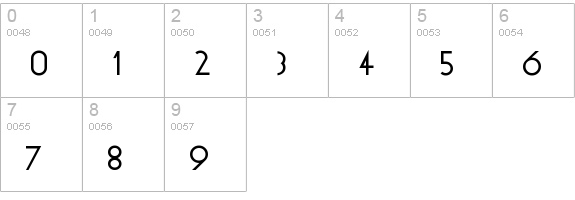
Nazareth font is a beautifully crafted typeface that exudes elegance and sophistication. With its classic yet modern design, Nazareth font is perfect for a wide range of design projects, from branding to editorial design. The sleek lines and graceful curves of Nazareth font make it a versatile choice for both display and text use. One of the best things about Nazareth font is that it is available for free download at FontsMarket.com. This means that you can easily add this stunning font to your collection without having to spend a penny. Whether you are a professional designer or a hobbyist looking to enhance your projects, Nazareth font is a must-have addition to your font library. With its timeless appeal and effortless style, Nazareth font is sure to elevate any design project it is used in. Download Nazareth font for free today and discover the endless possibilities it offers for your creative endeavors.